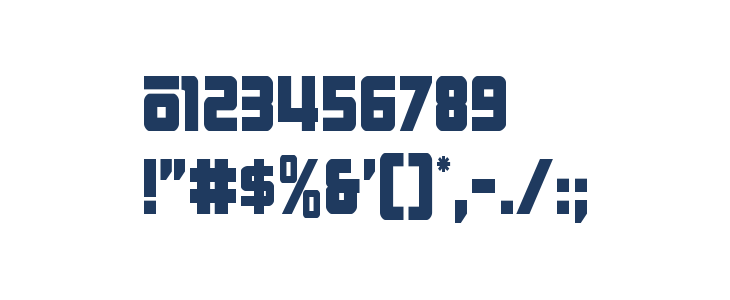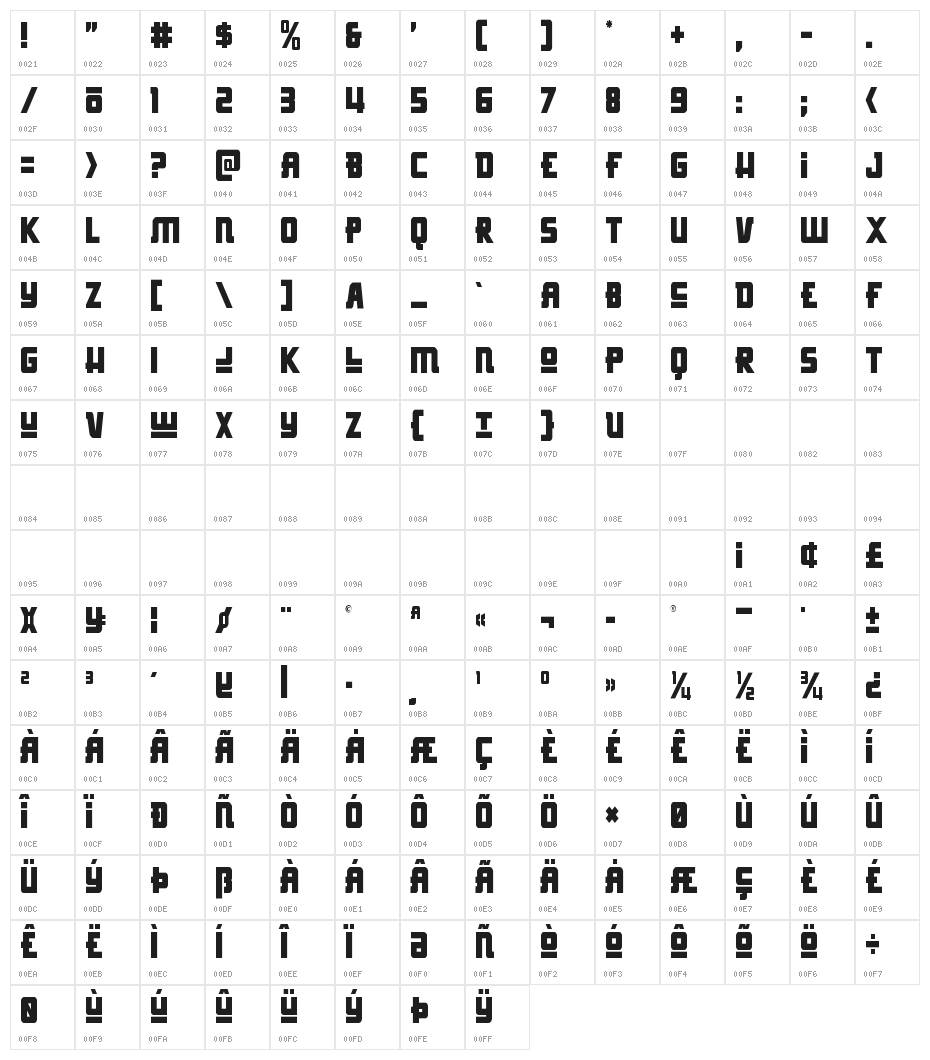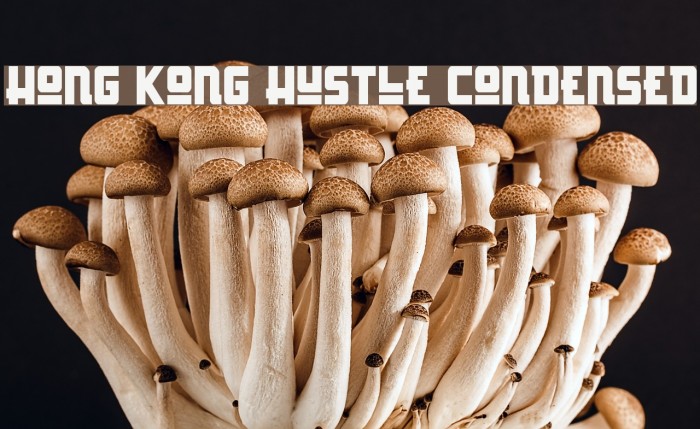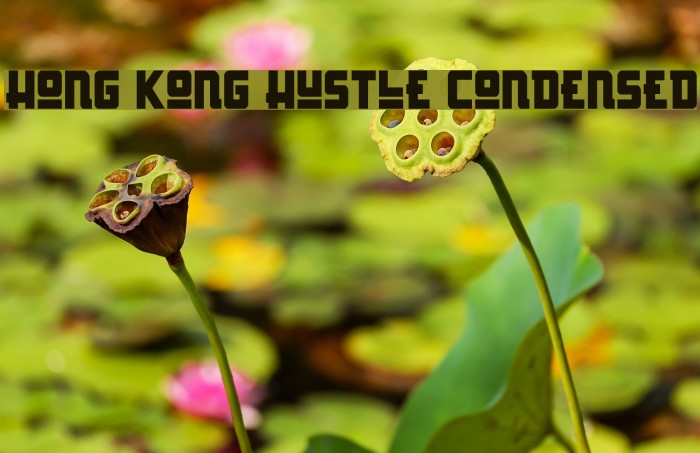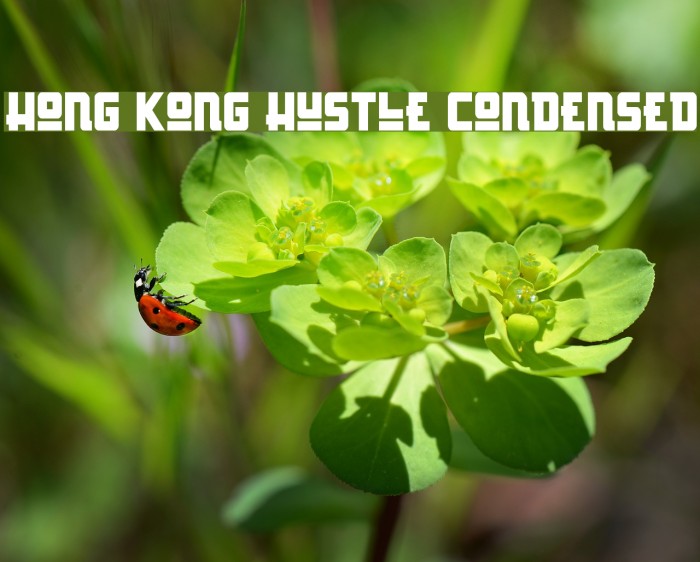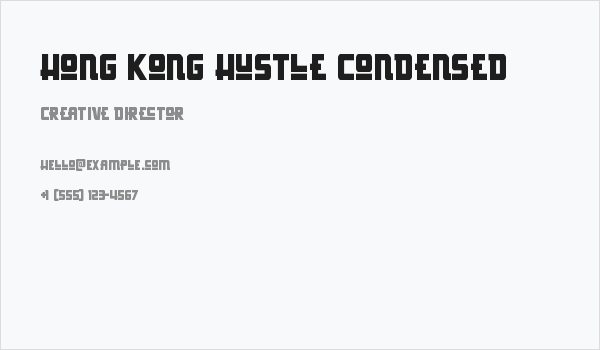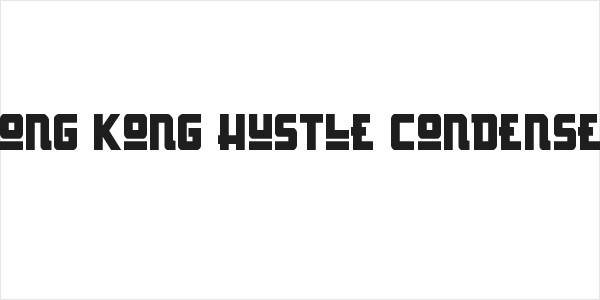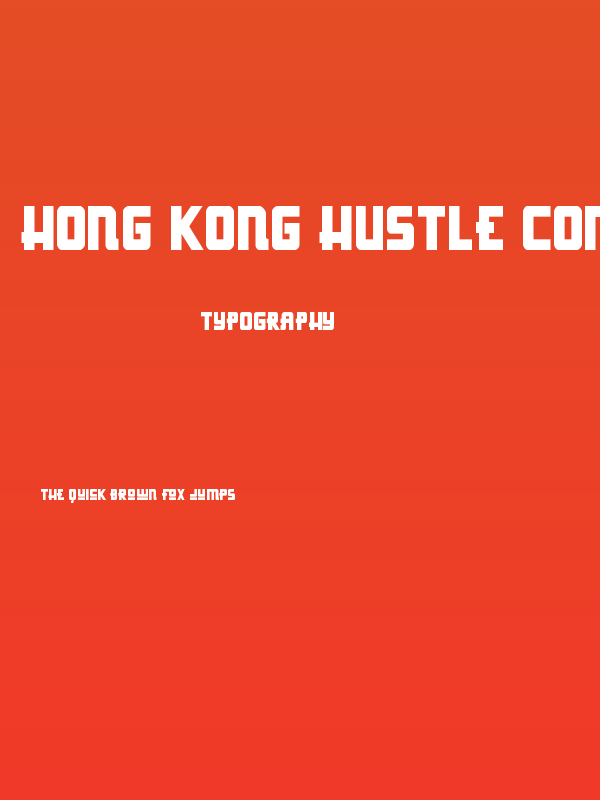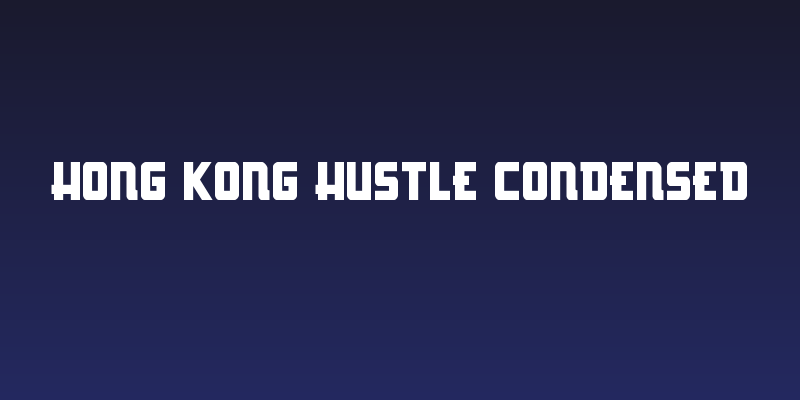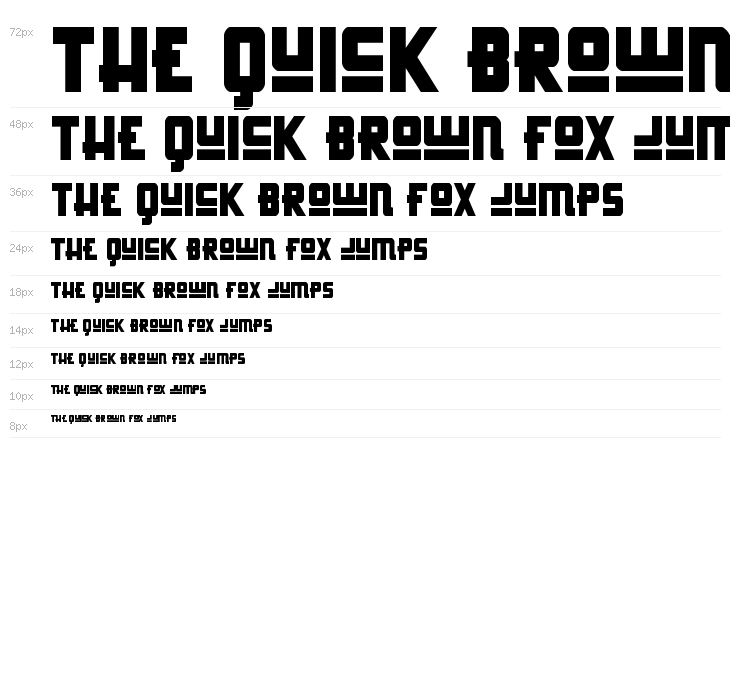
Hong Kong Hustle Condensed Font
Hong Kong Hustle Condensed Description
This font features a bold, geometric style with a condensed structure, making it highly impactful and attention-grabbing. The characters are designed with sharp angles and straight lines, creating a modern and futuristic appearance. The uppercase letters are particularly striking, with a uniform height and width that contribute to a cohesive look. The numerals and special characters maintain the same boldness and geometric design, ensuring consistency across all text elements. This font is ideal for projects that require a strong visual presence and a contemporary aesthetic.